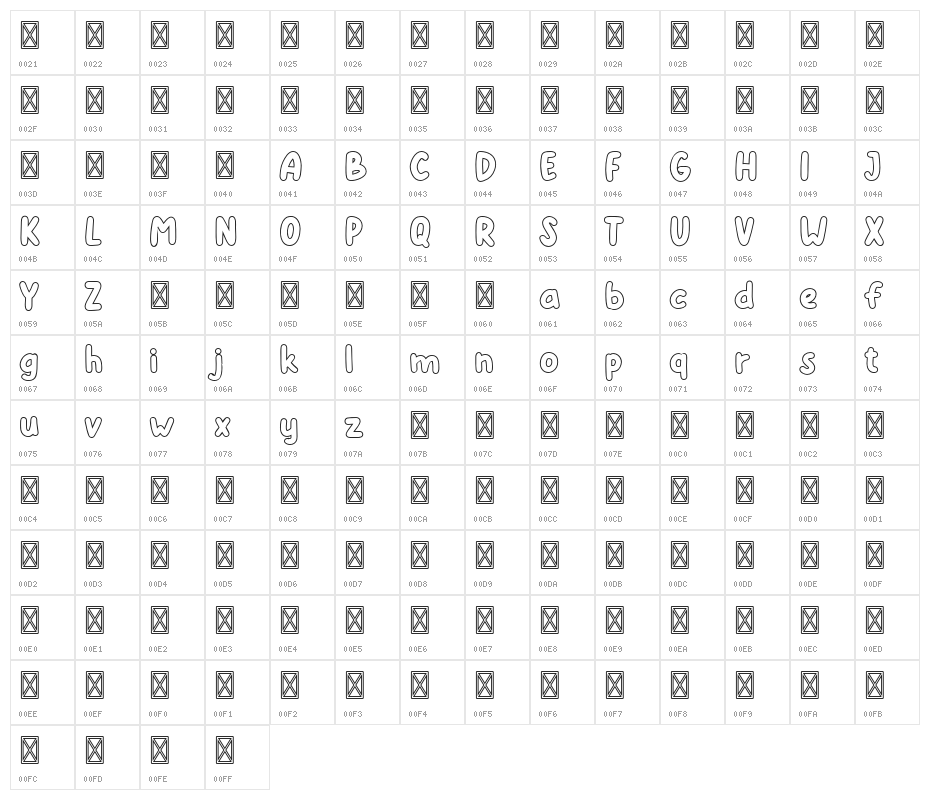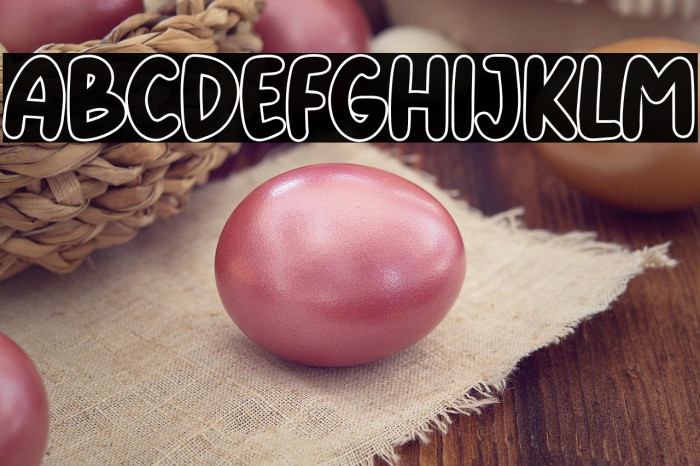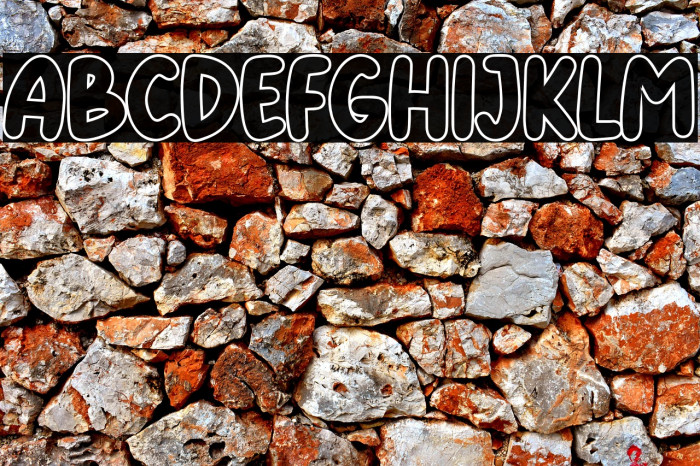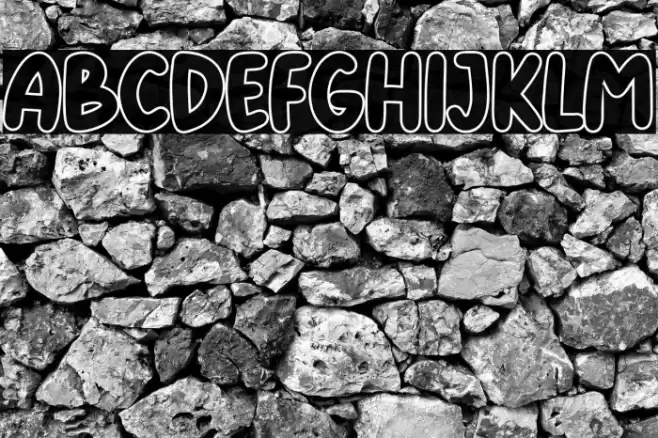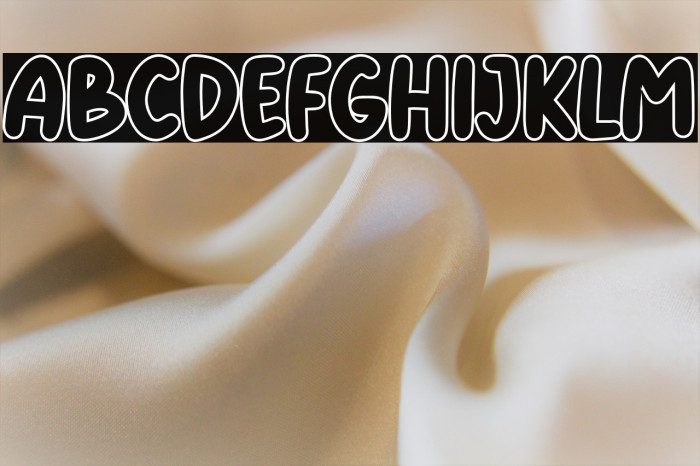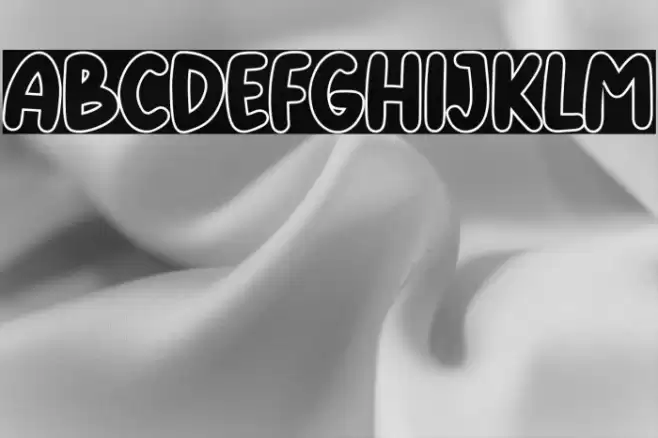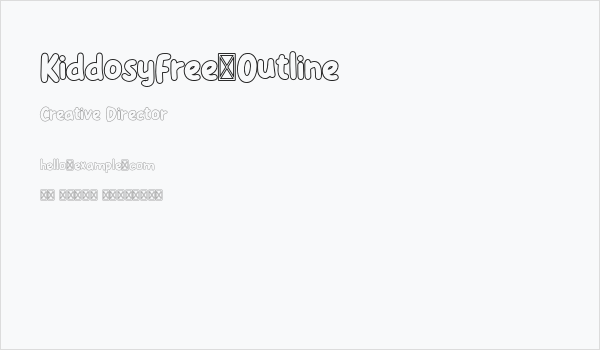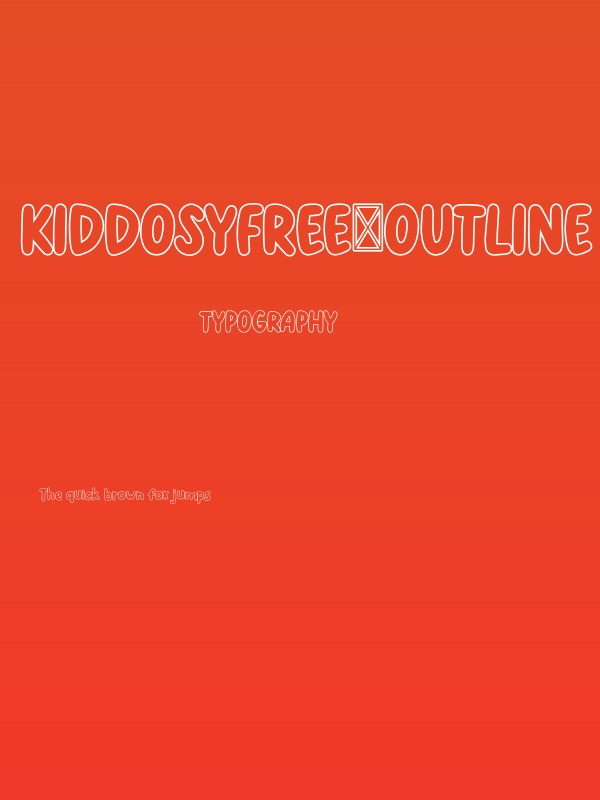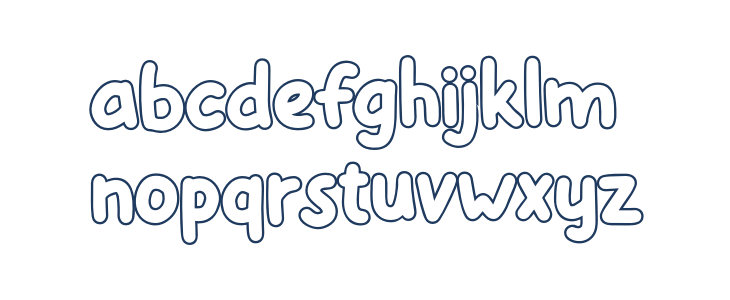
KiddosyFree-Outline Font
KiddosyFree-Outline Description
This playful and whimsical font features bold, rounded outlines that give it a friendly and approachable appearance. The characters are evenly spaced, with a consistent stroke width that maintains a uniform look across both uppercase and lowercase letters. The font's outline style adds a layer of depth, making it suitable for designs that require a fun and engaging aesthetic. Its simplicity and clarity ensure readability while still offering a unique visual appeal. The absence of serifs and the rounded edges contribute to its modern and casual feel, making it ideal for projects aimed at a younger audience or for those that wish to convey a sense of lightheartedness.
| Overall Style | Playful, Modern |
| Proposed Projects | Ideal for children's books, playful branding, party invitations, and educational materials. |